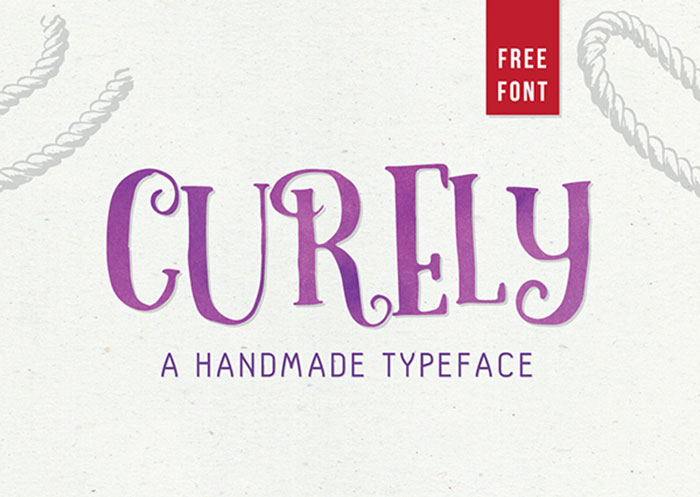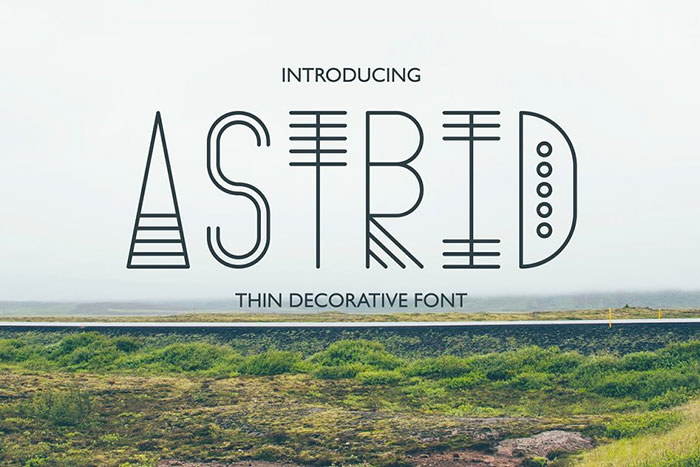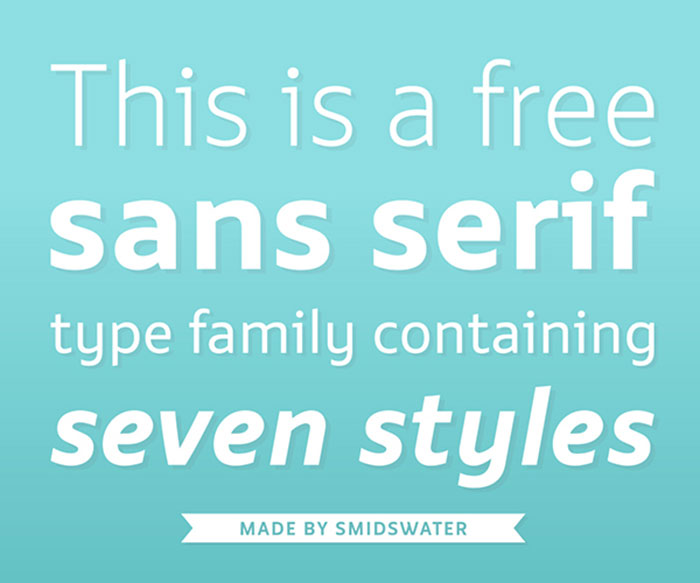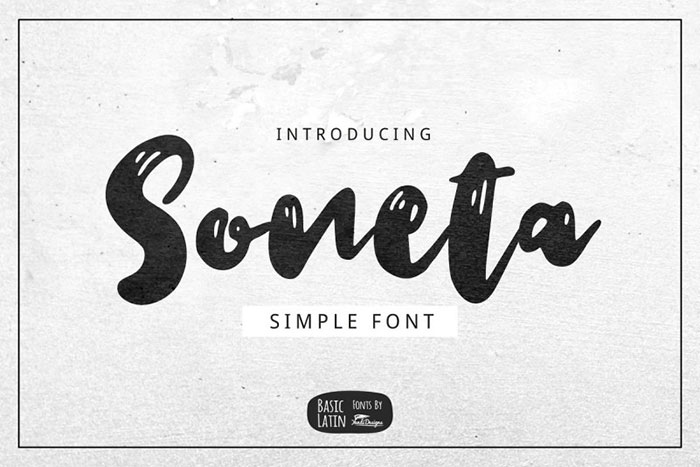
Choosing the right font is essential for establishing a very good image. Nowadays, companies are pouring more and more money into design and branding, because it is more important than ever to have an appealing image that would attract users from all over the world. An important factor when it comes to making great design is having the right fonts to back up the whole design and branding image. For this reason, choosing the right artistic fonts has become very important.
The whole idea of artistic fonts is a bit subjective, though. What is deemed artistic by some people is not by other people and vice versa. For this reason, we have compiled some of the best artistic fonts that we think would inspire you to produce the perfect design for your brand. These fonts contain a lot of details and most of them are quite versatile, but some of them are quite specific and are meant for a really specific venture or branding means.
Awesome Artistic fonts
Aguafina Script Font
The Aguafina is a very good script font that combines elegance with artistry. It is a semi-formal font that is sure to provide you with some flamboyancy that a font should have, but it is also quite elegant and would not look out of place in even more subtle settings.
It is designed in such a way that characters of the font blend into each other, and the whole look is made with legibility in mind as well, which is obviously important and is sometimes overlooked in artistic fonts. This font would be ideal for product packaging, book covers and more.
Curely – Free Typeface
You can use Curely in one of your more girly projects if you have any. It is handmade and is meant to provide some cuteness to your projects. It is deemed as a more girly artistic font.
Author Font
This sans-serif font is known as an author font and is made for designing projects. It is one of those artistic fonts that is quite versatile and can be used in a variety of different projects. You can use either the bold or regular version of the font, and it comes with OTF and TTF files.
Artistic Chaos
This font is exactly what the name says – it is chaos, but it is so well-made that it suits a variety of different projects.
It is a modern calligraphy font that is packed with different options and alternatives for you to choose – it comes as a script or as a sans script, and also with 9 different templates that you can use for social media or other uses. It is great for greeting cards, photo overlays, branding and packaging and much more.
Victorian Decade Display Font
This is one of the artistic fonts that venture deep into the 19th century and delve into the Victorian era. It displays some devices and illusionisms from the 19th century and is sure to impress your audience with that combination.
It is a dimensional typeface with properties of Baroque typefaces, which means that it also contains some 3D properties of those fonts. It is meant primarily for decorative purposes, but also for packaging or branding means. It makes your stories or projects much more visible and stand out.
Amsterdam Tangram Font
This font does have some limitations due to ranging from visibility and illegibility, but it is certainly an interesting artistic font. It stems from Dutch comic books (hence its name). It is a bit special and should be used in limited use.
RahayuX
This modern font certainly displays some interesting properties that not many artistic fonts do.
Hipster Viral Blackletter Font
This hipster viral blackletter artistic font stems from gothic settings of the Middle Ages and up to the 17th century, so it has some interesting properties for specific projects.
Elegant Artistic Font
This artistic font is very elegant and possesses some qualities that really blend well together; it has smooth curves and strict lines and they blend so well together in this font, that you can use it for brand names, logos, advertising, and many other uses.
Biban Font
Biban font is handmade and produces a really joyful atmosphere for your projects. It is fully polished and very creative.
Arturito Free Font
Arturito free font is meant to keep everything simple and artistic. This font is meant to give your project a feeling of being modern while also keeping elegance. It is great for logos, packaging, and headlines.
Smidswater Typeface Font
A great thing about this font is that it is completely free and it brings a professional look to your projects. This is one of those artistic fonts that is artistic and professional at the same time.